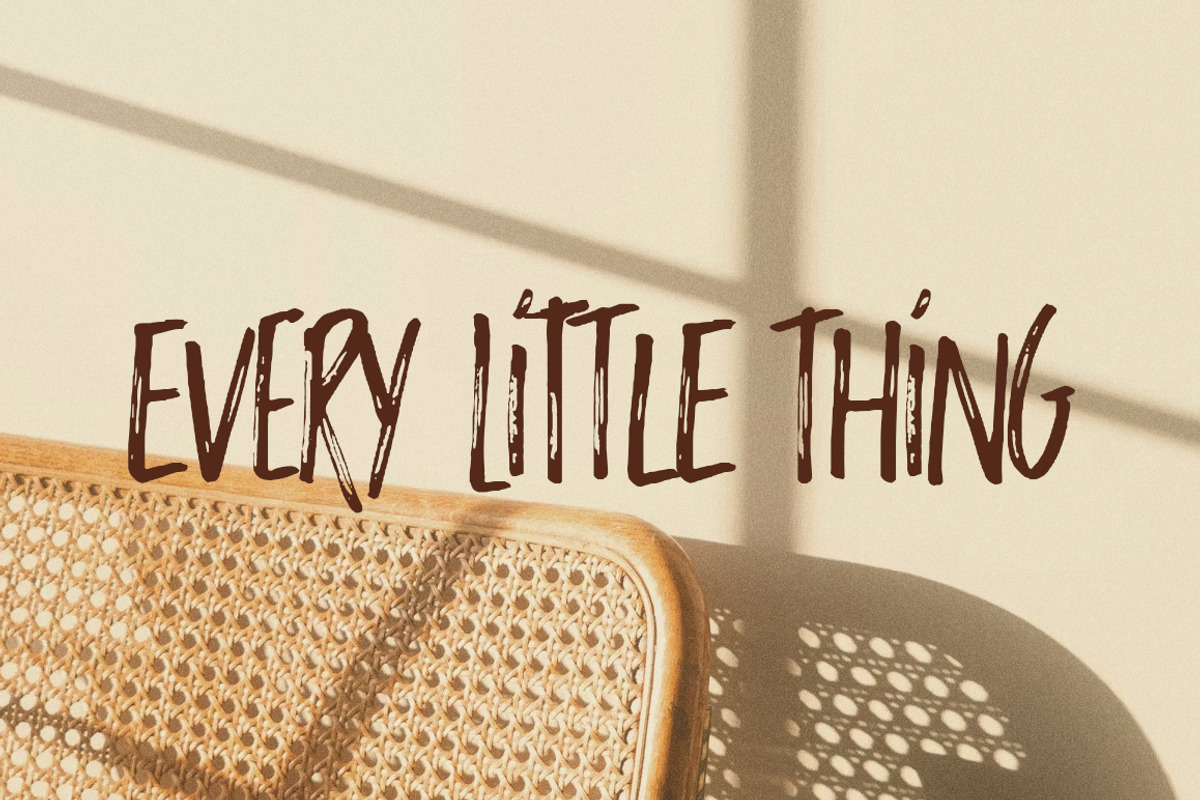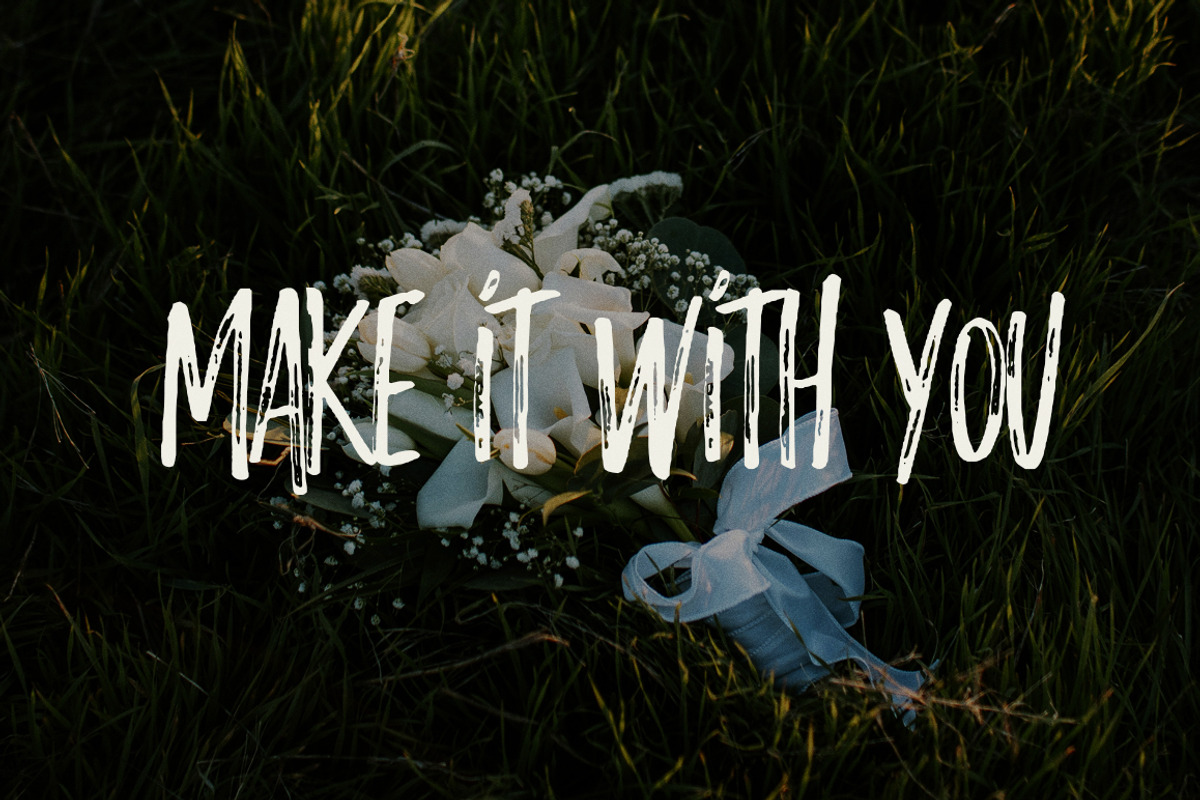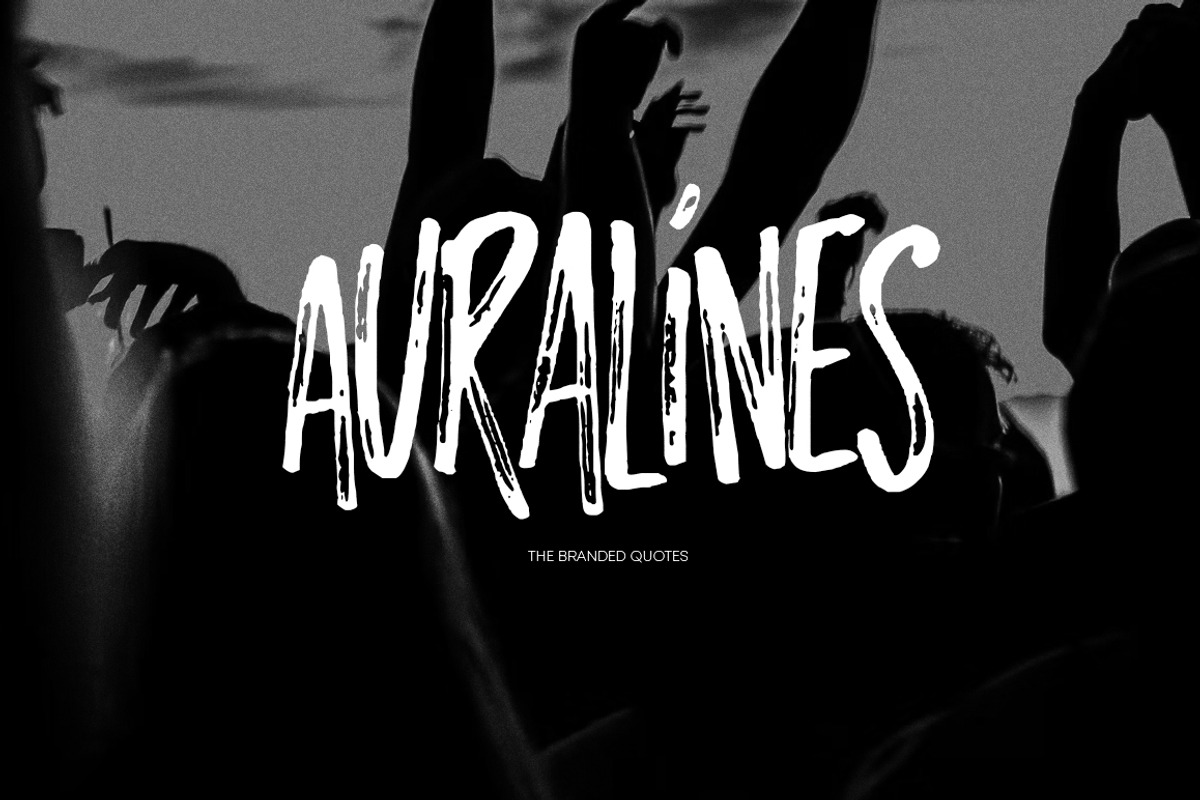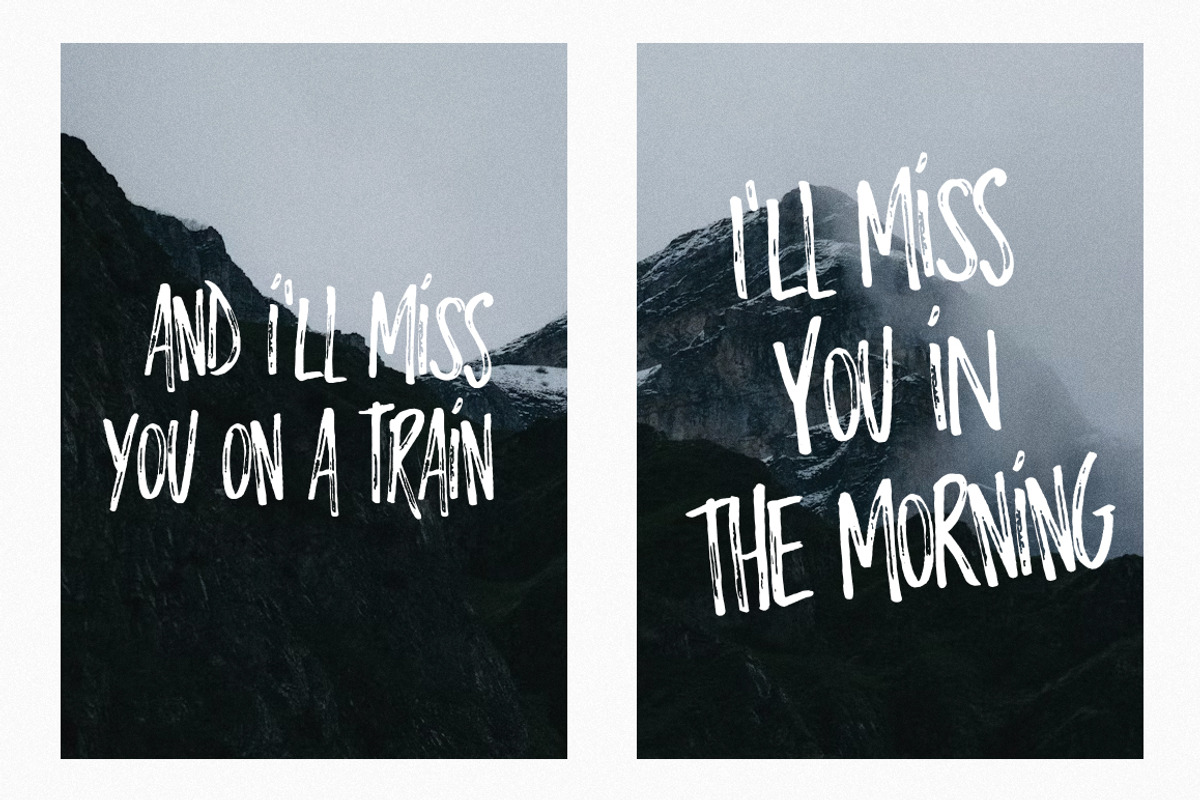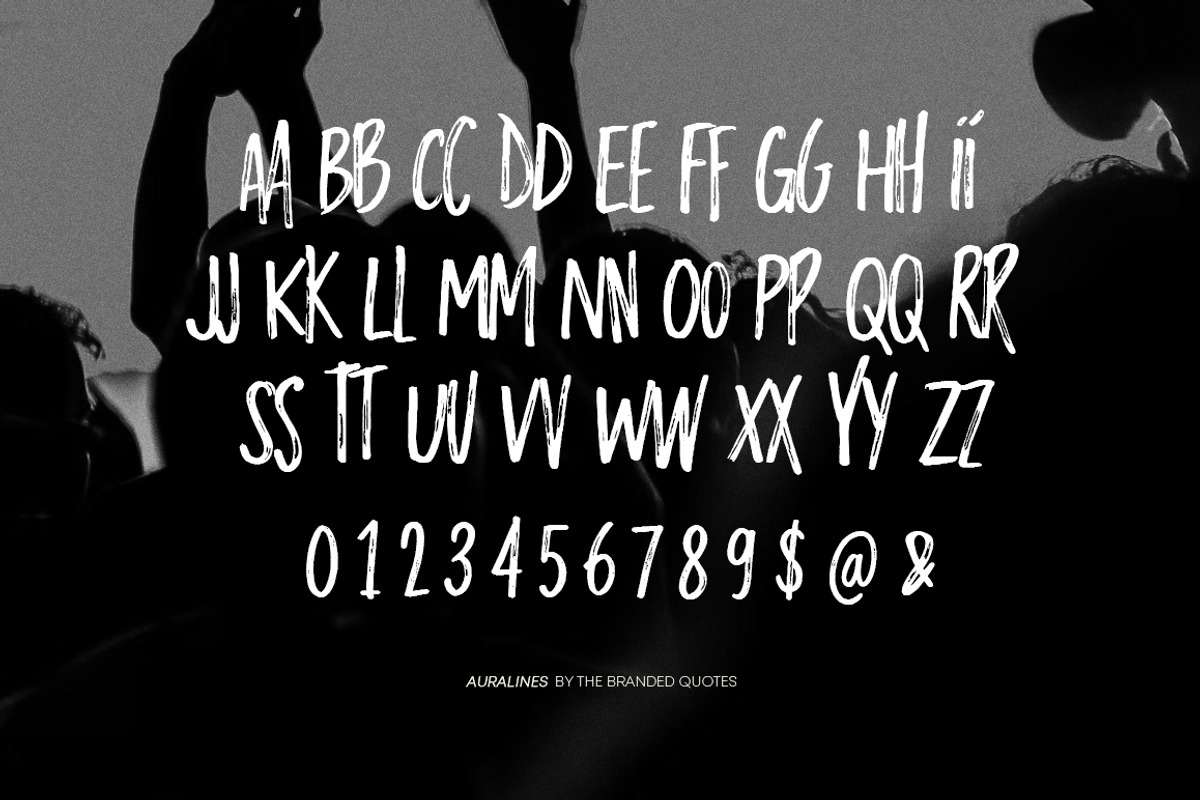
Auralines - Brush Font
Auralines is designed to cater the need of expressive and natural looking projects but without the exaggerations on the brush strokes. It draws inspiration from our classic brush fonts with a modern touch of readable freehand strokes.